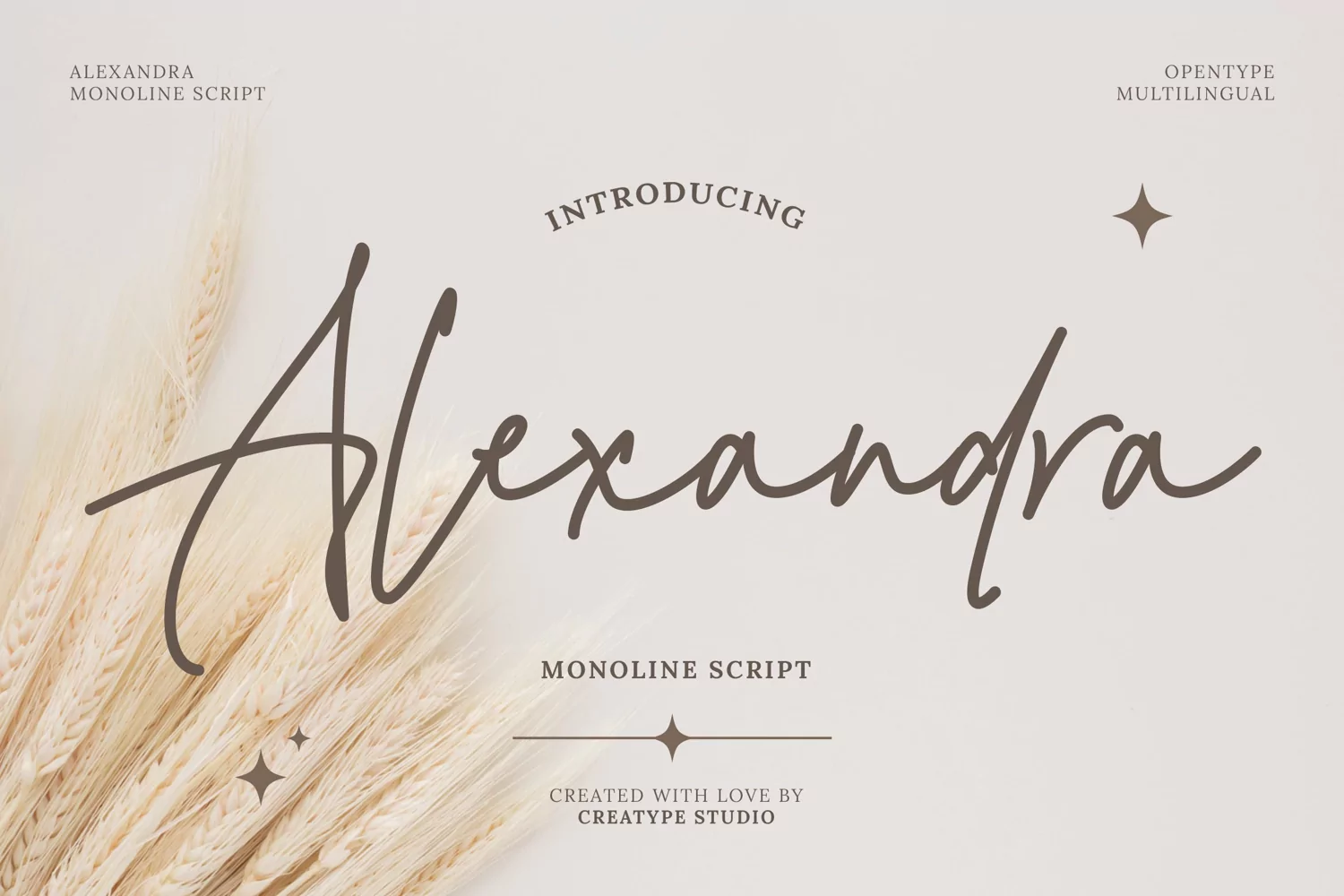
Alexandra Monoline Script
Alexandra
Alexandra is a stylish typeface that has sophisticated and versatile looks. It gives a chic vibe to your design project.
Alexandra is perfect for branding projects, logo, wedding designs, social media posts, advertisements, product packaging, product designs, label, photography, watermark, invitation, stationery and any projects that need handwriting taste.
• Ligature & Alternate